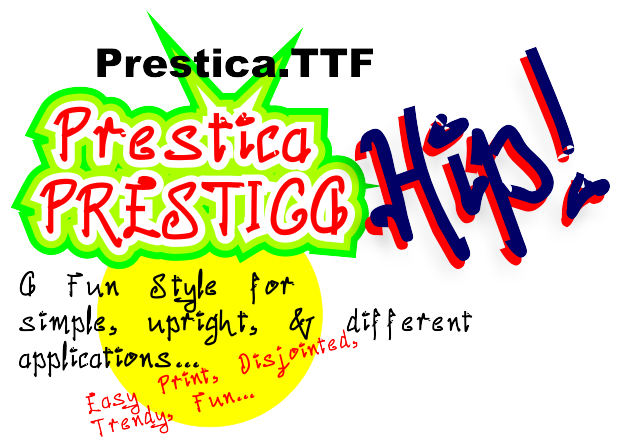
Slim font..have fun. There are many uses for very narrow styled fonts and they do look good as dropshadow styles. www.efectpro.com Embroidery Design Specialist,Custom Keyboard Embroidery Font creations, graphics and TTF's. |